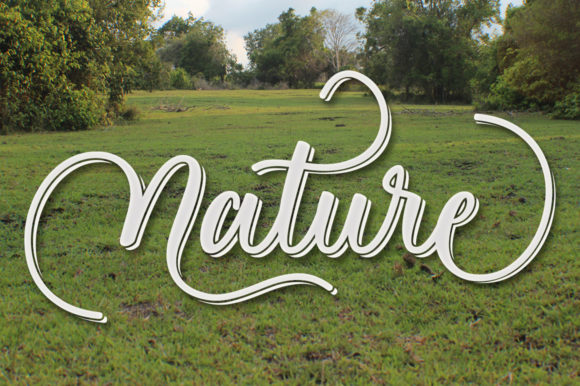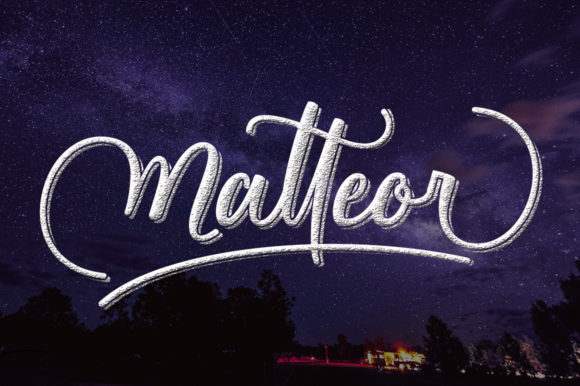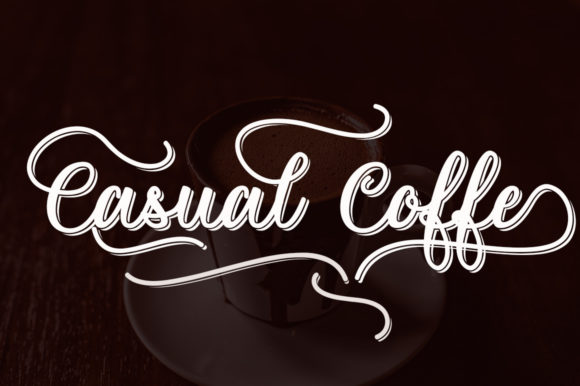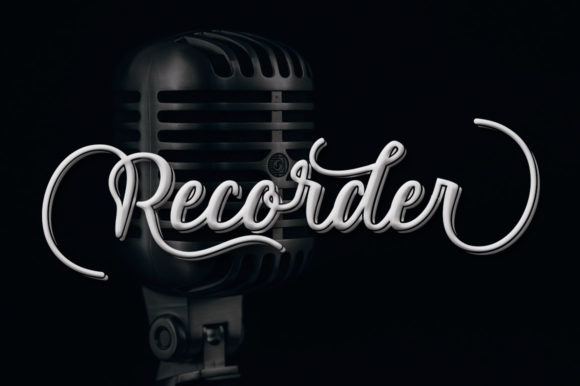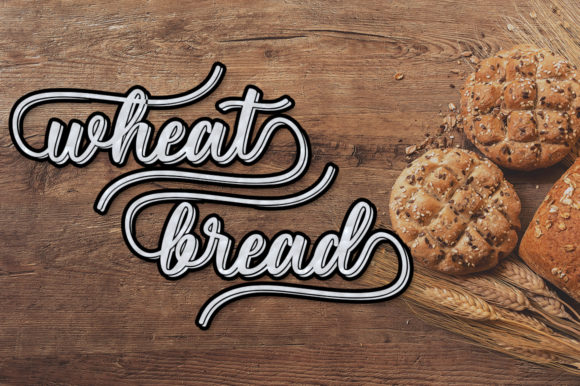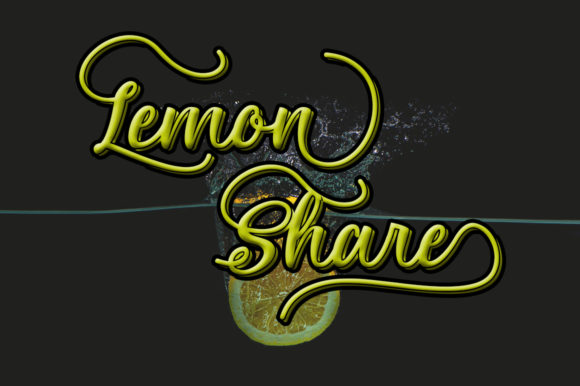
The Perfect Font to Satisfy Your Creative Cravings
Have you ever stared at a blank page, searching for the perfect font to bring your design to life? I know I have. It’s that moment of pure creative bliss when everything falls into place, and your vision starts to take shape. That’s exactly what happens when you discover the Chokellate Font.
Chokellate Font is a delectable handwritten font that’s sure to satisfy your design cravings. With its unique and tasteful style, it’s the perfect addition to any project. Whether you’re a graphic designer, illustrator, or simply a creative enthusiast, this font is a valuable tool in your design arsenal.
What sets Chokellate Font apart is its ease of use, thanks to its PUA encoding. This means you can access all the glyphs and swashes with ease, taking your designs to the next level.
Key Features of Chokellate Font
- Font Family: Chokellate Font
- Unique Characteristics: Distinctive, hand-drawn style with unique flourishes and swashes, ideal for creative and artistic projects
- Language Support: Supports multiple languages, including Latin, Cyrillic, and Greek scripts
Chokellate Font Review
Overall, I’m quite pleased with the Chokellate font. It’s got a certain charm that sets it apart from more generic sans-serif fonts.
- Unique, hand-crafted feel
- Well-suited for titles and headings
- Legible even at small font sizes
I particularly enjoy the way the font’s rounded edges and subtle flair on the letterforms give it a friendly, approachable vibe. It’s perfect for projects that require a touch of personality.
- Not ideal for body text, due to its playful nature
- May not be suitable for very formal or professional applications
- Some letterforms can be a bit tricky to read at very large sizes
While Chokellate isn’t a one-size-fits-all solution, I think it’s a great addition to any designer’s toolkit. With its quirky charm and versatility, it’s sure to add some visual interest to your next project.
Chokellate Font is ideal for use in food-related designs, such as restaurant menus, packaging, and advertising. It can also be used in creative projects, such as typography art and graphic novels.